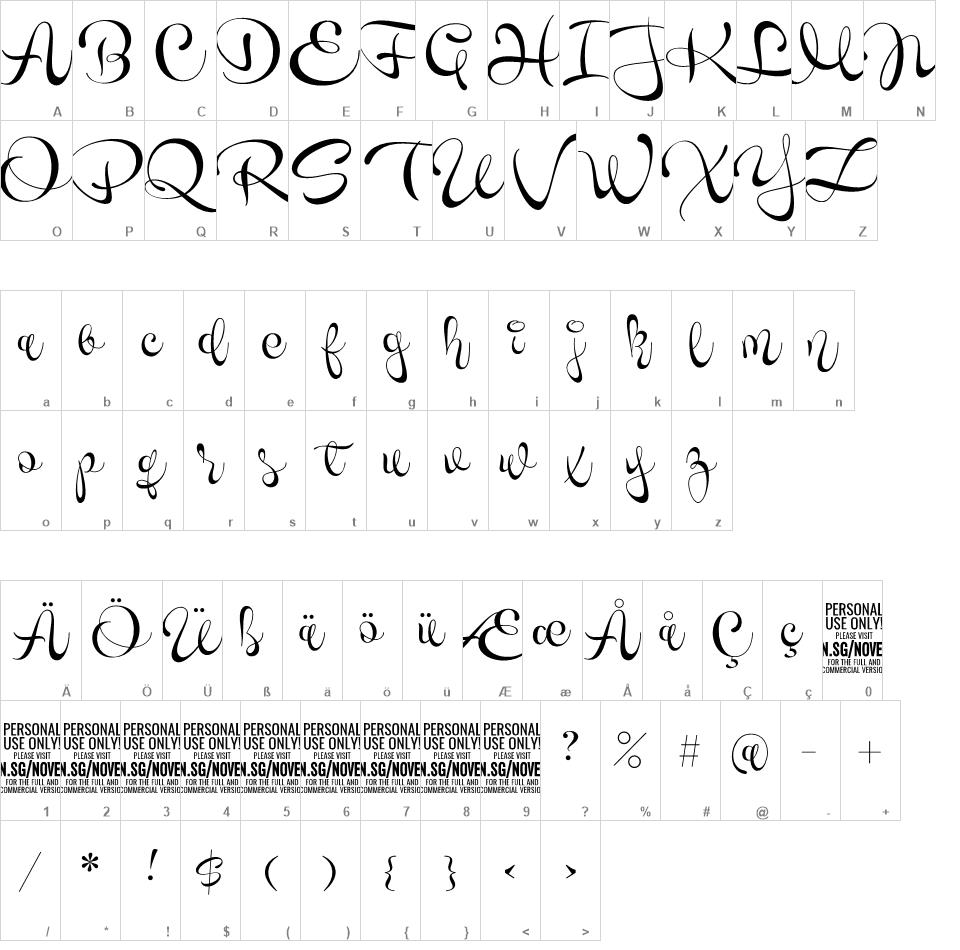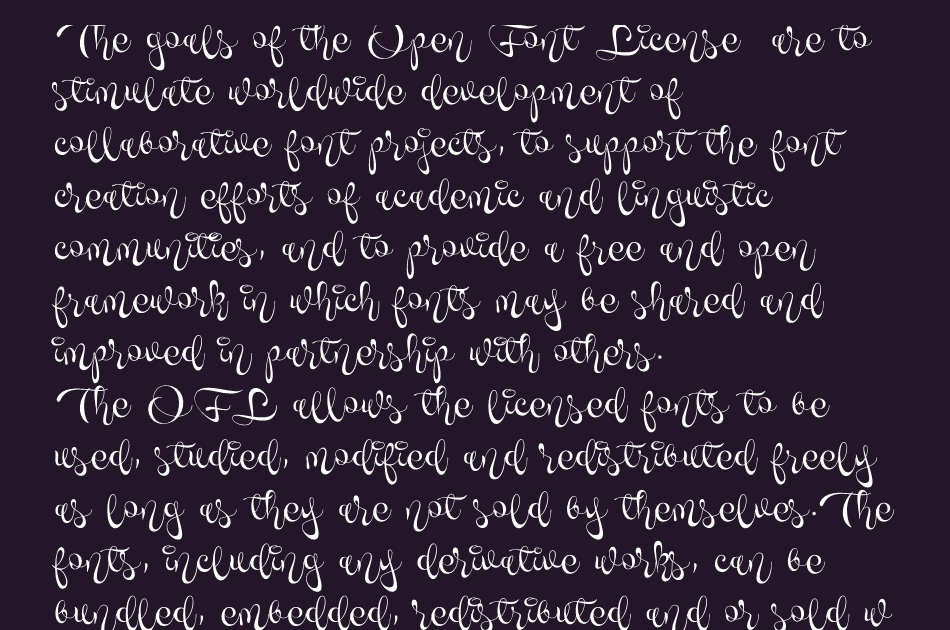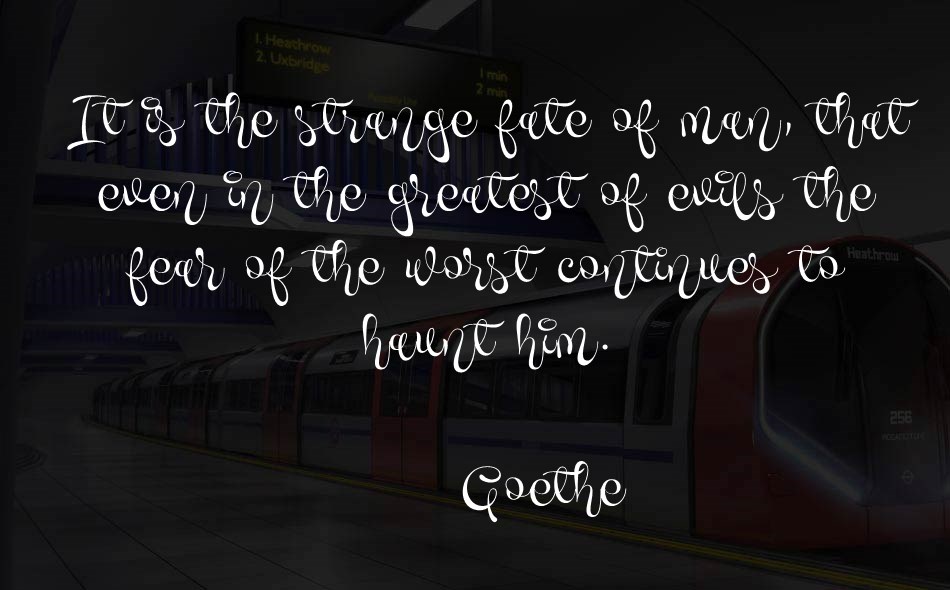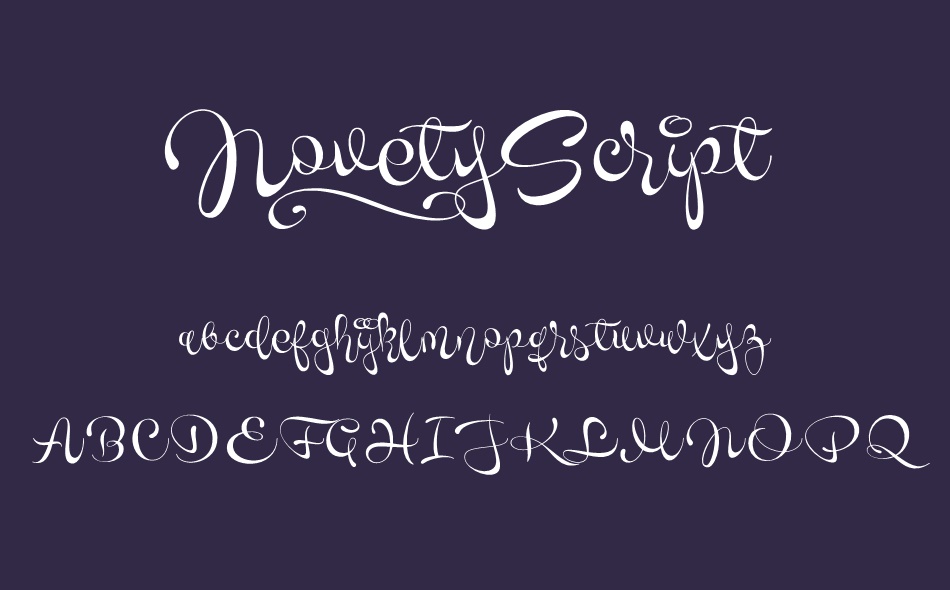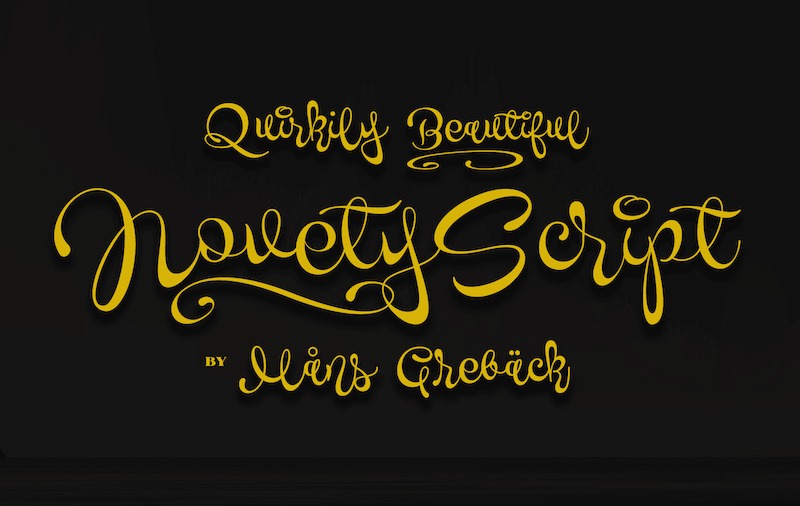
Novety Script font
Use underscore _ anywhere in a word to make a swash.
Example: Nov_ety
Use multiple underscore to make different swashes.
Example: Cute___ness
Novety Script is a quirky script typeface, drawn and created by Mans Greback.
It has a great contrast, with bold calligraphic curves and hair thin conjunctions, giving the lettering a juicy, swirly appearance.
Use underscore _ anywhere in a word to make a swash. Example: Nov_ety Use multiple underscore to make different swashes. Example: Cute___ness (Download required.)
Optimized for logotype and header usage, Novety Script works great for product branding or as a signature, or for a beautiful wallpaper quote graphic. It has a modern style and a strong personality to make it stand out.